550 Free Brush Fonts
Festany Font
It’s a graceful handwritten font that reflects happiness and hospitality aptly for a name Festany. Because of its inherent and versatile character, it suits a wide range of
Redista Font
Redista is a clean and classic cursive font that is perfect for love stories. It is particularly useful for designing eye-popping logos, branding, and quotes. Every letter also
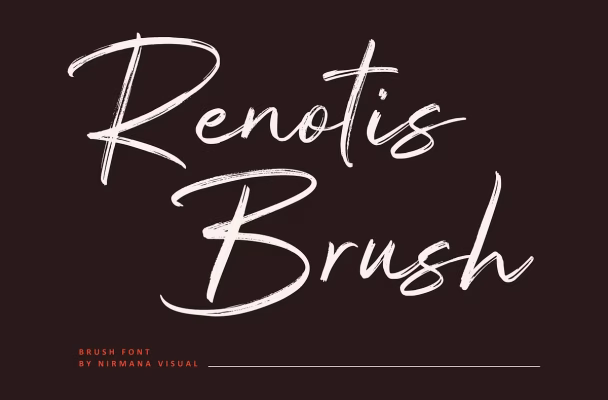
Renotis Brush Font
Renotis Brush is a modern brush script typeface. It’s perfect for creating the most beautiful and harmonious typography for a variety of projects: Logos and logo systems, posts
Central Point Font
Central Point is an aggressive handwritten font. The distinctive appearance of wire stars will add spice to your creations! You can use this font for PERSONAL PURPOSE. Link
Rockfull Font
Rockfull is refined natural hand-brushed typeface looks perfect on your projects, and adds fun character to any design. It is ideal for branding assignments, logos, wedding designs, social
Cloughness Font
Despite having its roots in Brush script, Cloughness is a modern and stylish font that is perfect for your favorite projects. Get mesmerized by its uniquely stunning and
Lestari Font
Lestari is an awesome handwritten font which is best suited to design t-shirts graphics, posters, social media messages, quotes etc. Include it to your art performances, and they
Leneora Seraphine Font
Leneora Seraphine is an elegant handwritten font with a soft brushy stroke applied to the letters. Writing in cursive handwriting font is slender and possesses a distinctive feel
Beyond Sacrifice Font
Brush Script A contemporary and natural brush script typeface that requires no Beyond Sacrifice. It’s ideal to any branding project whether it is branding, t-shirt printing of new
Aimchestar Font
Aimchestar Font is a fantastic and classy font of brush script category designed by the genius, Ferry Hadriyan. It does not matter whether it is a book’s cover,
Magest Font
it is important that the Font Magest Brush comes along with masculine themes. It suits in some designs for instance the logotype, brand, packaging, quotes, music poster, cover
Frontwars Font
Frontwars is described as a natural handwritten brush font font. It is perfect for both branding and personalization of your projects, designing wedding invitations, books and other coverages,
The Redlight Font
Check out The Redlight Script Free Demo Script, a lovely font obtained from Rabittype. This one is made out of a natural hand-lettering brush, so it just adds
The Lost Dungeon Font
The Lost Dungeon font is modern and can be used for any kind of work from posters to logos, magazine headlines, book covers, banners, and much more! This
Voice of Truth Font
Voice of Truth is a fresh brush type font designed for poster, logo, magazine, book cover, banner, and more. Have this fun’ display font and make beautiful designs
Raisteny Font
Raisteny is handwritten brush font, the natural handwritten font. It’s perfect for your branding and decorating projects, invitations, book covers, marketing, and numerous others! PUA encoded = PUA
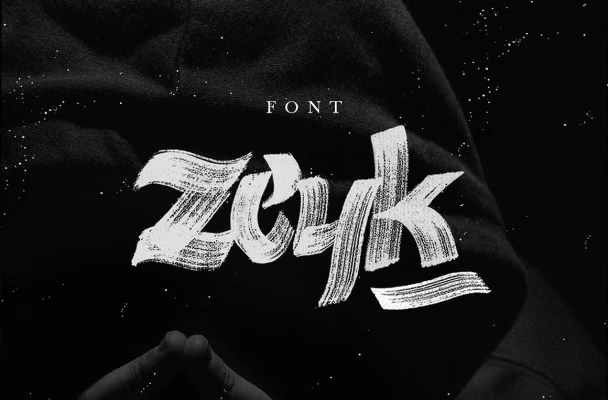
Zeyk Font
Zeyk Brush font is again here with the amazingly gorgeous and hand-lettered brush font that will breathe new life into your typography. Tabloid Zeyk has an unconventional and
Noxderity Font
Noxderity Brush Font is suitable for work with logos, branding, designing of the products’ packaging, homeware and different mugs, posters of quotes, bags for the shoppings, t-shirts, book
Brightwall Font
Brightwall is one of the most sophisticated handwritten fonts with attention to details and extensive hours required to become a go-to favorite among designers. It does retain its
Janetta Rossie Font
Hi Meet, Janetta Rossie Small font family, a charming pair of fonts, SVG opentype bundle with extras! JanettaRossie is another font that is consider under Perfect Duo Pairing
Backrush Font
Handmade is a beautiful handwritten typeface that was drawn using a brush pen. This font is offered in PUA encoded – that is good news for you –